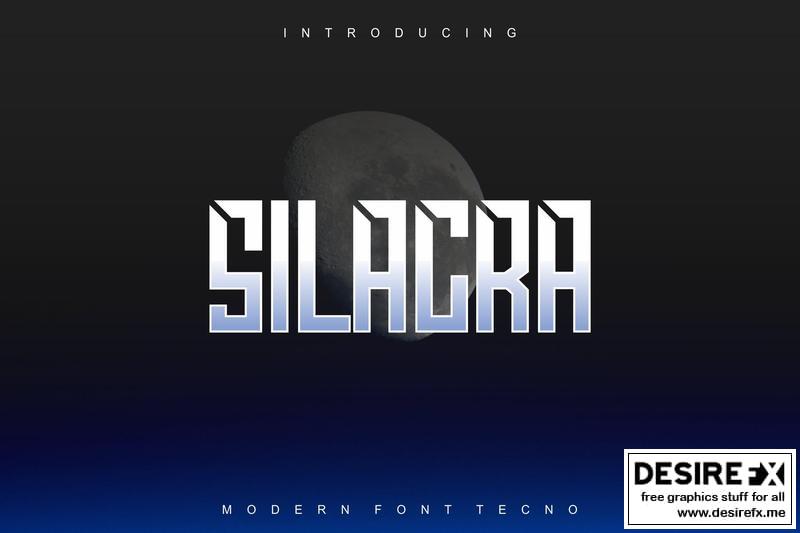
Silacra Font 8D9SWUL
Introducing our new product Silacra Font – Modern Font
Silacra Font – Modern Font is a bold and authentic display font. The font is suitable for any branding project like logo, t-shirt printing, esport, and many more. outstanding in a wide range of contexts.